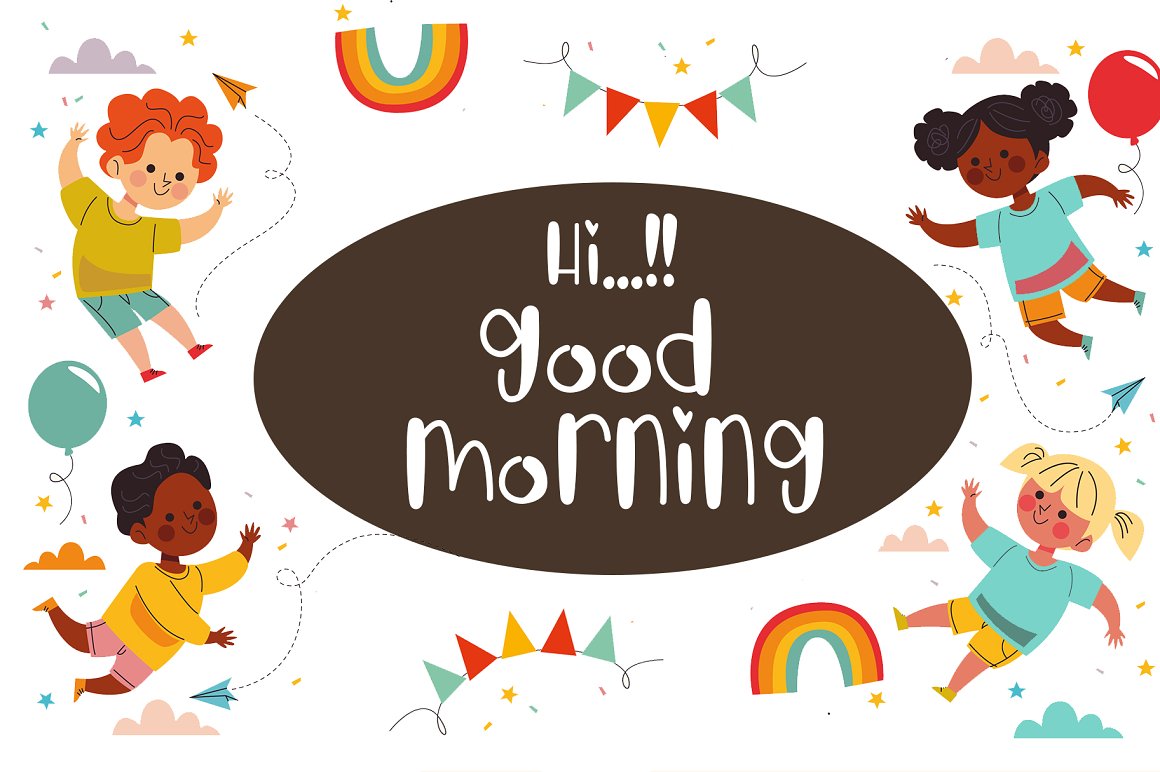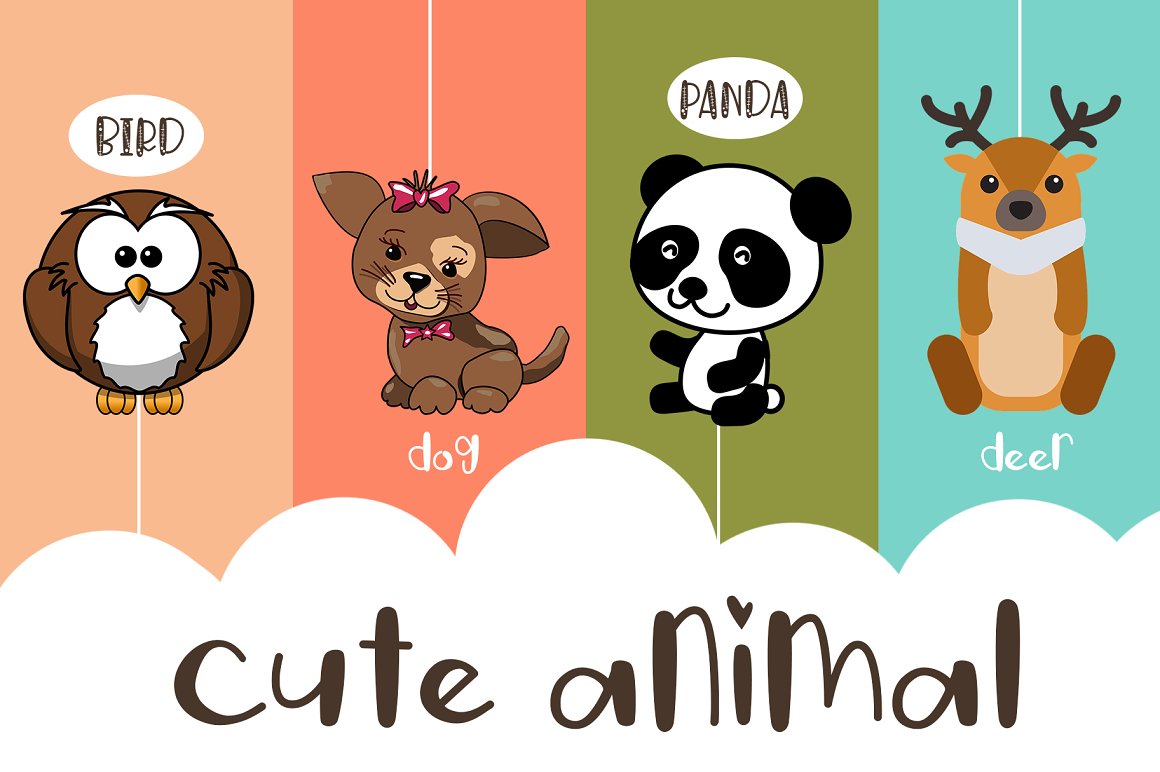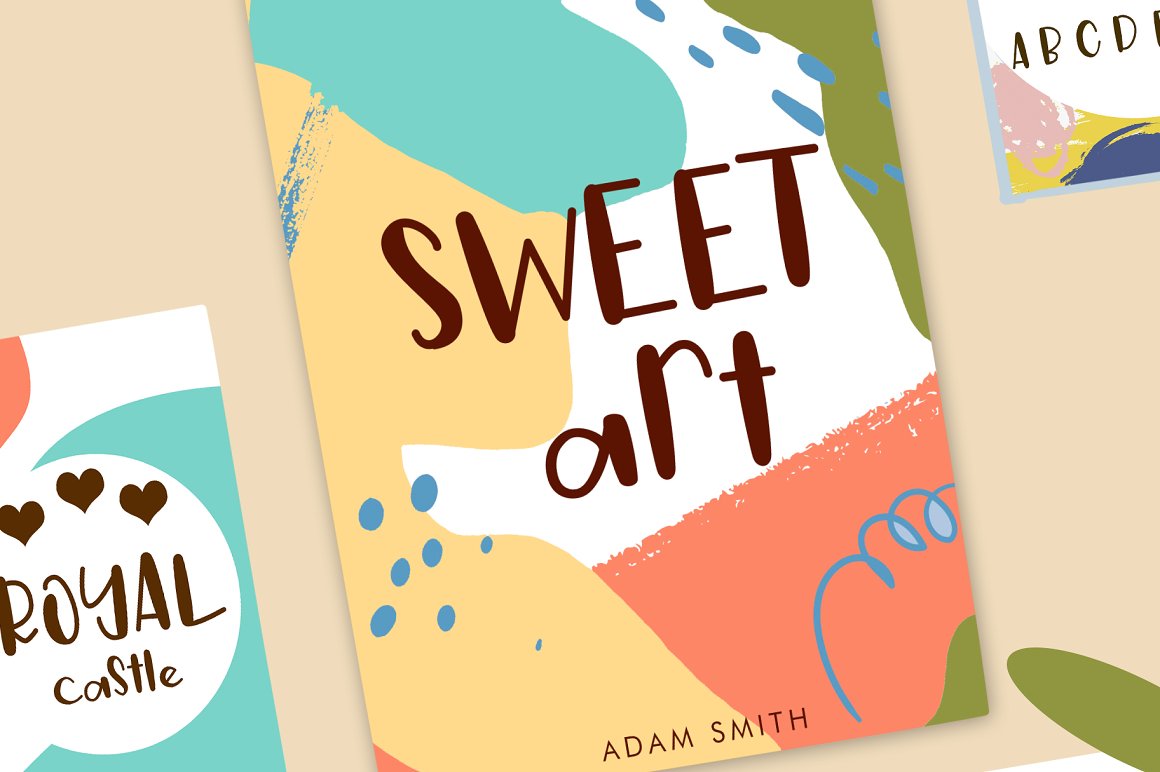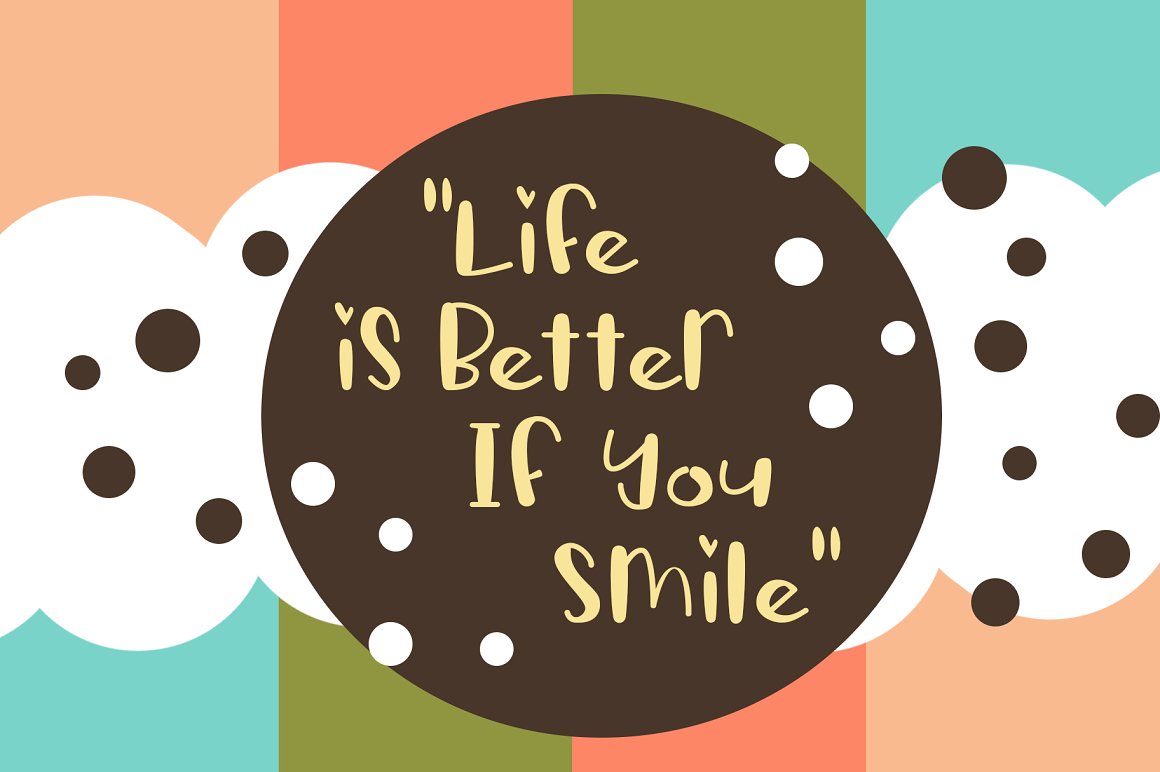
Stitching of Children Font
Stitching of Children Display Font
This is a fun and quirky handwritten font with a unique style, playful look & feel! embodies fun. Use this gorgeous and unique font to bring any DIY. you also can enjoy many unic alternate style.